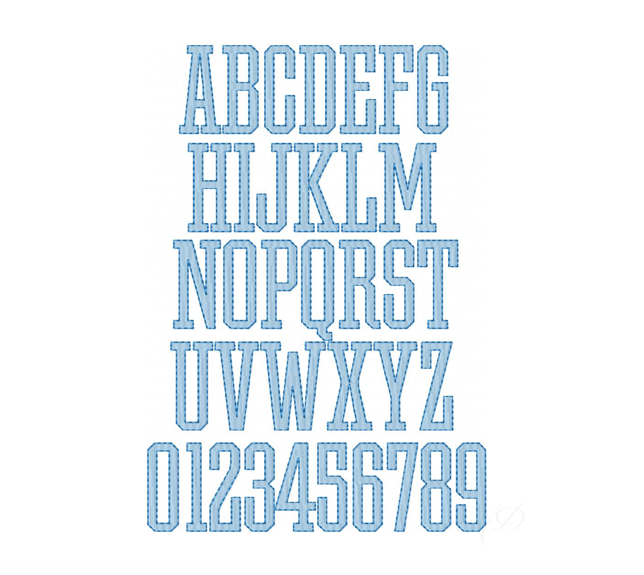
Athletic Fill Embroidery Font for Monograms
Unlock your creative potential with the Athletic Fill Embroidery Font, specially designed for crafting personalized monograms. This two-color font features an elegant embroidery fill complemented by a contrasting redwork outline, making it ideal for all your embroidery projects. The thinner style of this font ensures easy fitting into various embroidery hoops, allowing for seamless integration into your designs.